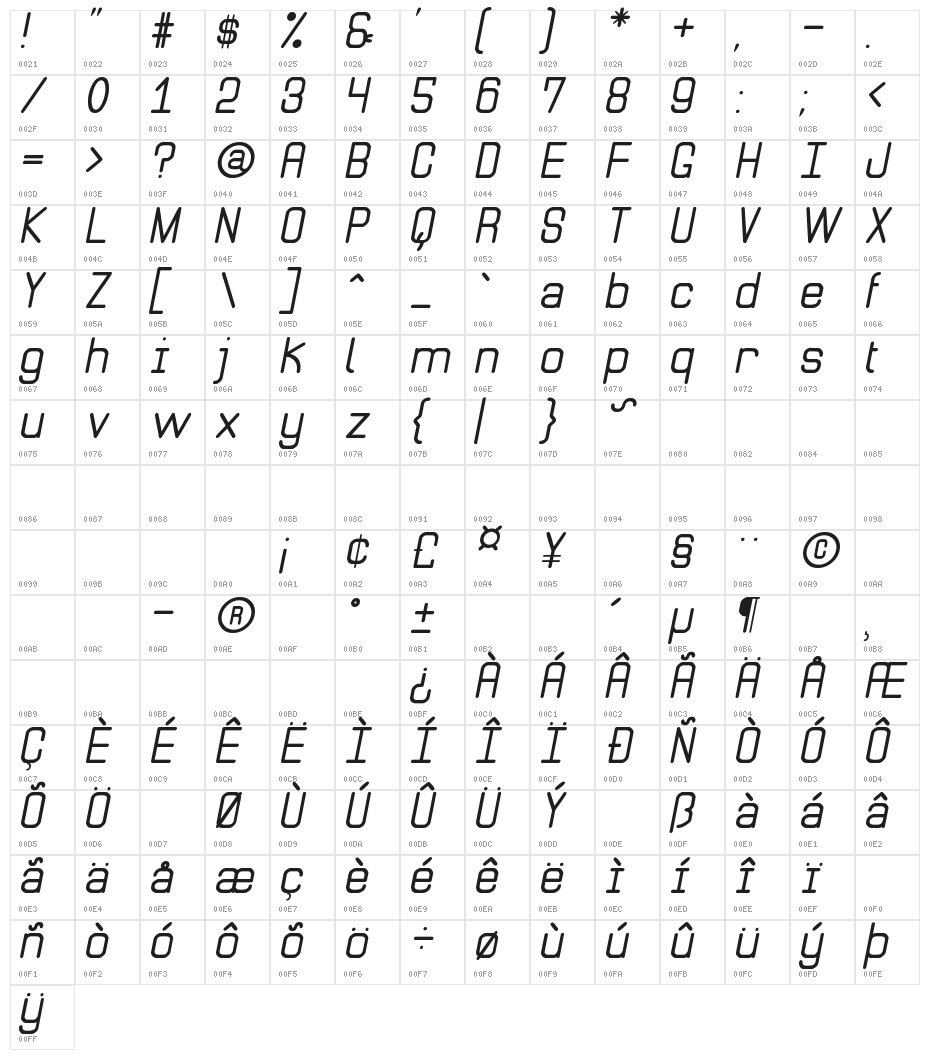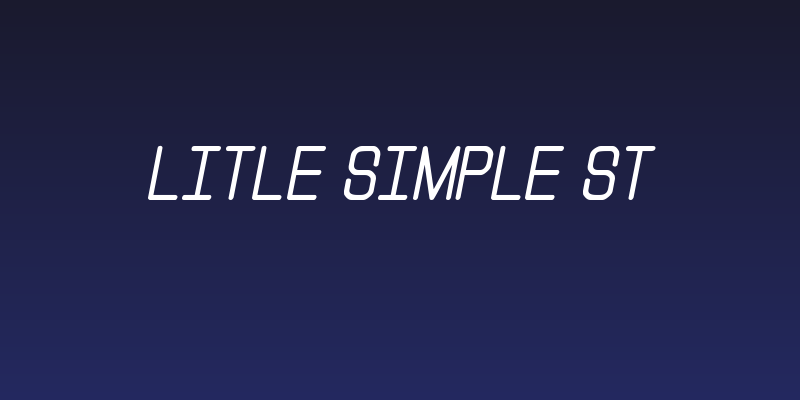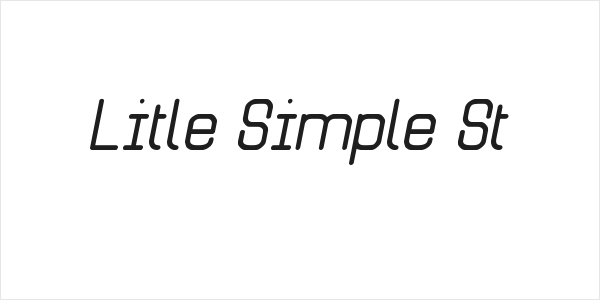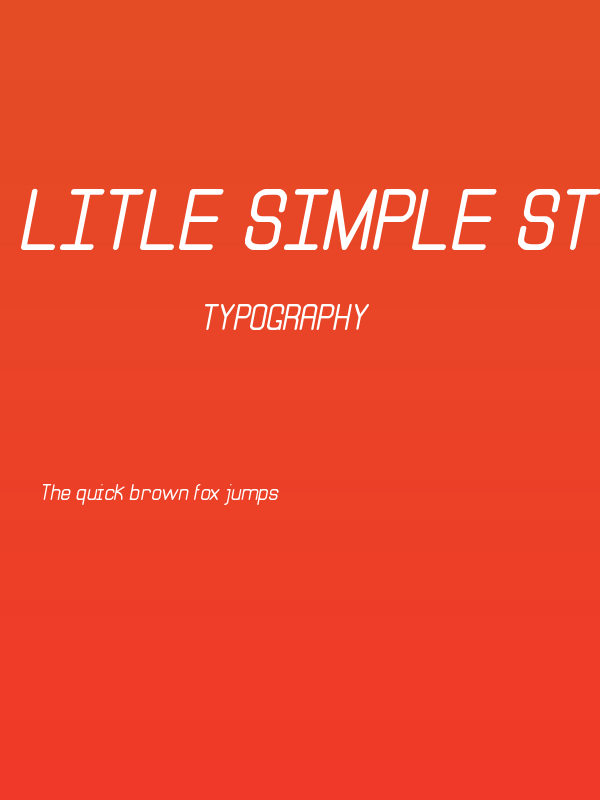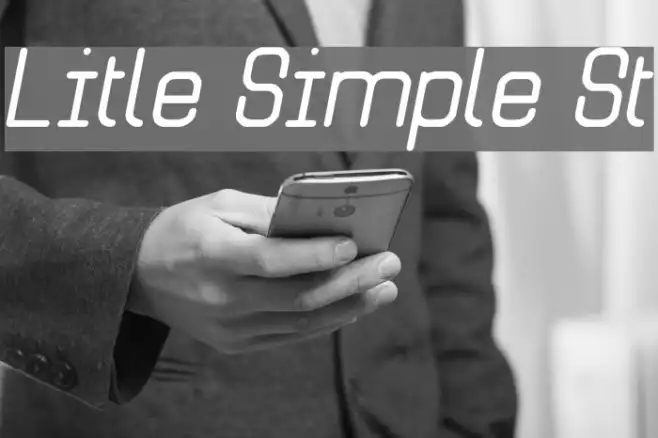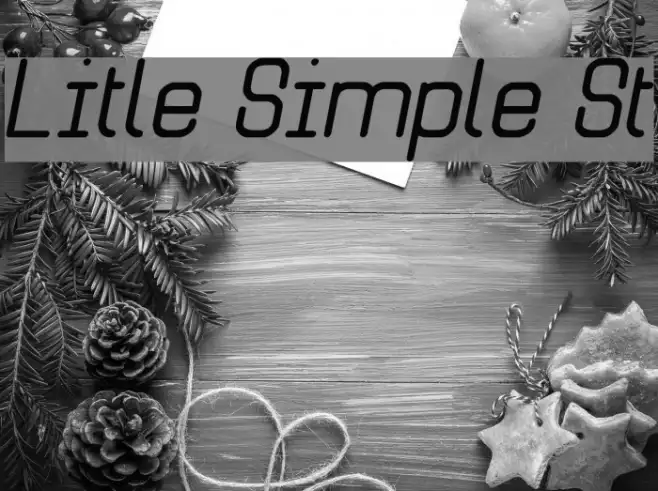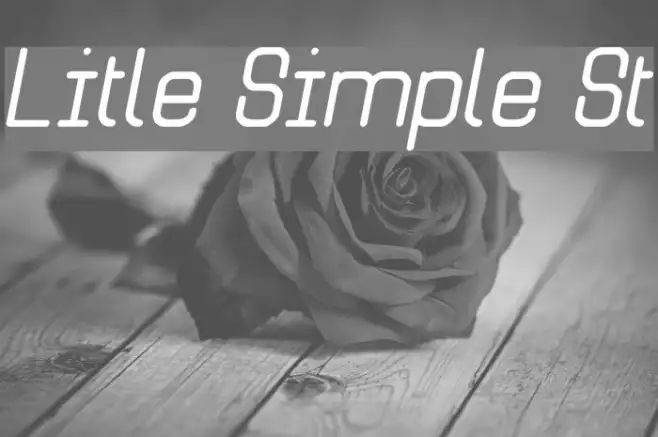
Litle Simple St Font
Litle Simple St Description
This font features a sleek, modern design with a slightly slanted, italicized appearance. The characters are uniformly structured, with rounded edges that give a soft, approachable feel. The uppercase and lowercase letters maintain a consistent style, with a slight variation in height and width that adds a dynamic quality. The numerals are clear and easy to read, making them suitable for various applications. Special characters are well-integrated, maintaining the overall aesthetic. The font's clean lines and balanced proportions make it versatile for both digital and print media.
| Proposed Projects | Ideal for branding, advertising, digital interfaces, and print media where a modern and approachable feel is desired. |